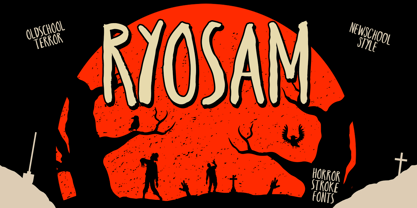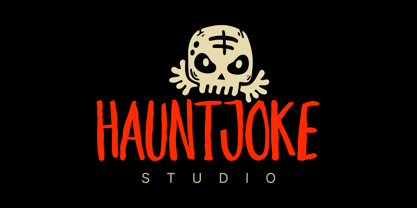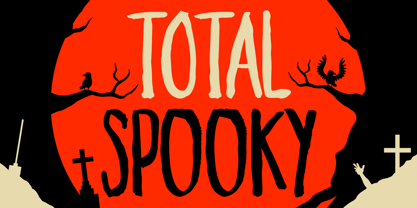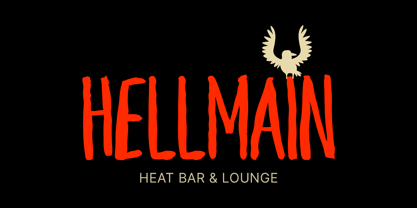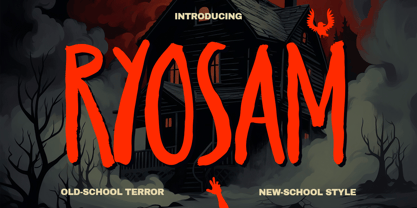
Ryosam
by Konstantine Studio
The Ryosam Font Family was designed by Abdilah and published by Konstantine Studio. Ryosam contains 1 styles. More about this family
Meet RYOSAM – The Font That Screams Personality
Drenched in dread, dipped in ink, and clawed straight from your darkest childhood tales—Ryosam isn’t just a font. It’s a feeling.
Crafted with bold brush strokes and raw ink texture, Ryosam delivers an authentic handwritten horror aesthetic perfect for all things spooky, strange, and surprisingly fun. From blood-curdling Halloween posters to charmingly eerie children's books, Ryosam walks the perfect line between terror and playfulness.
Whether you’re designing:
• Halloween event flyers or haunted house signage
• Spooky storybooks and educational coloring books
• Creepy-cute mobile games or horror-themed apps
• Kids’ toy packaging with a dash of mystery
• Party invitations for October frights or fun fright nights
Ryosam brings your concept to life with just the right mix of spooky and stylish.
With old-school terror in every curve and new-school energy in every edge, this font is ready to haunt timelines, posters, covers, and everything in between.